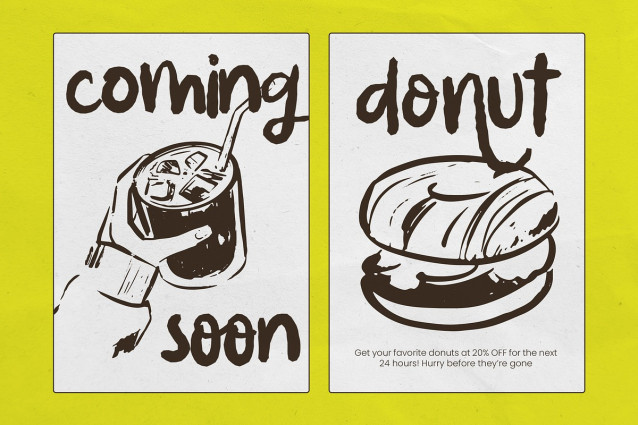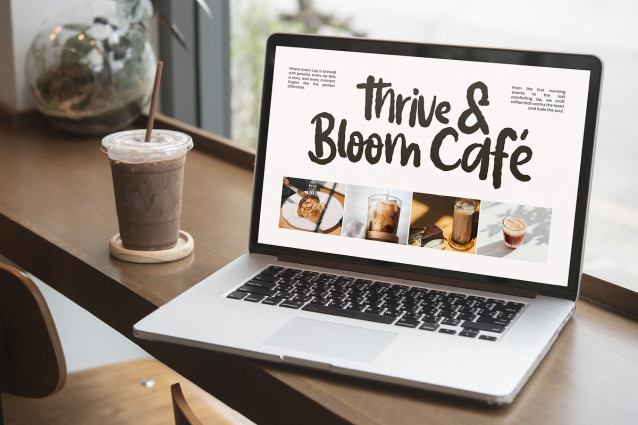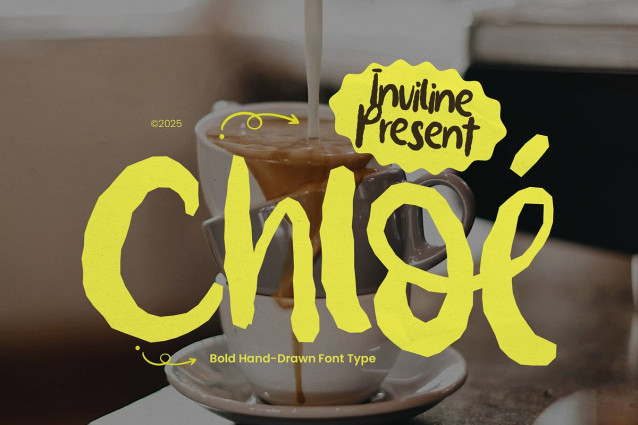
Chloe Fun Font
Chloe Fun Font a fun and playful handwritten font perfect for adding a touch of personality to your designs. Its bold, hand-drawn style, with irregular strokes, creates an artistic and expressive feel. Ideal for creative branding, dynamic designs, and projects that need a touch of warmth and whimsy.
Uppercase & Lowercase Characters: Fully designed for a complete typographic experience